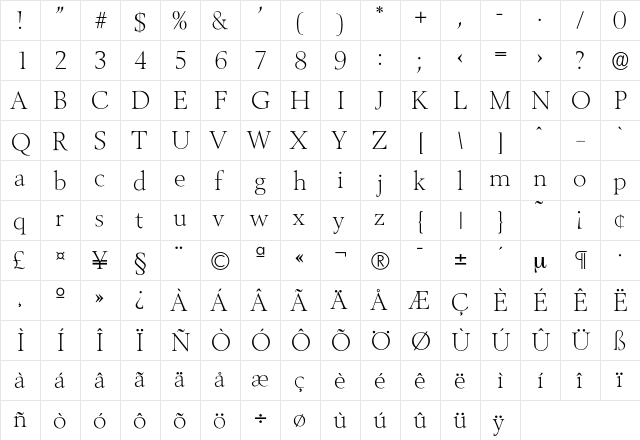
Belfast-Xlight Regular
Design Context for Belfast-Xlight Typeface
Belfast-Xlight is a composed and adaptable typeface that performs quietly and consistently across a wide range of design contexts. The delicate stroke weight brings airiness and refinement to layouts.